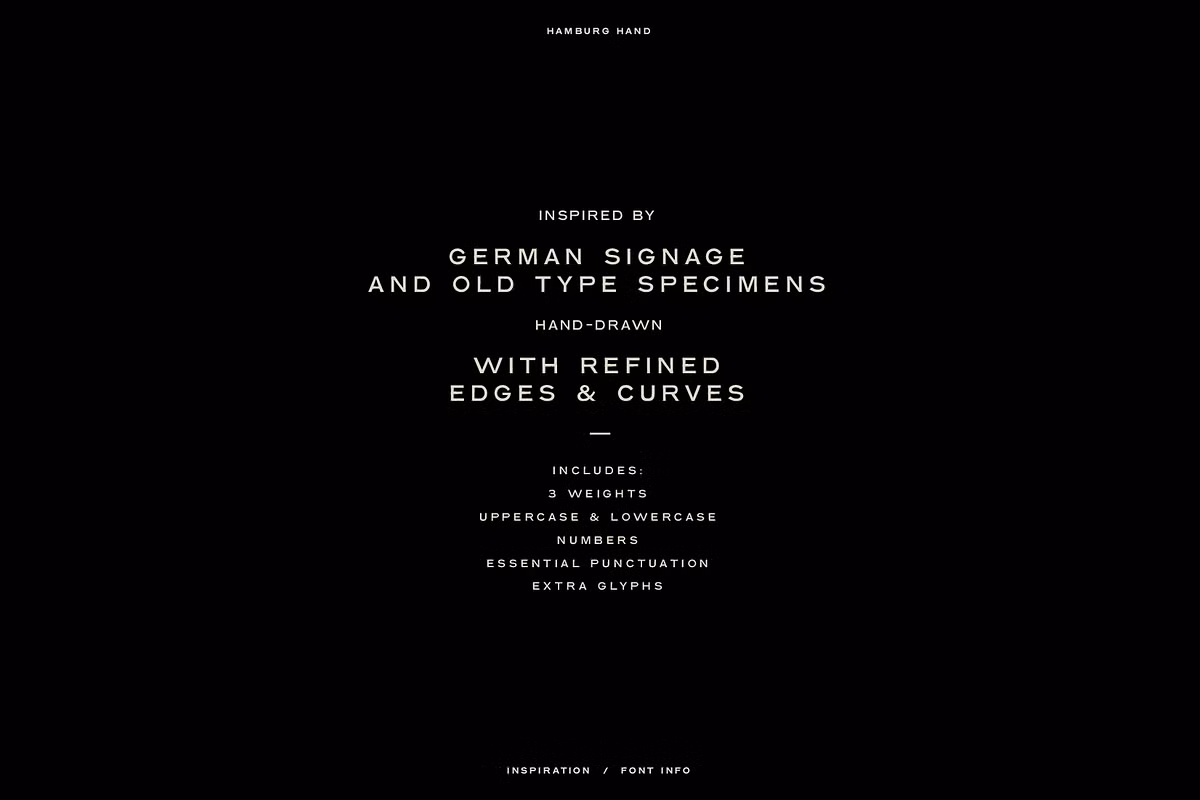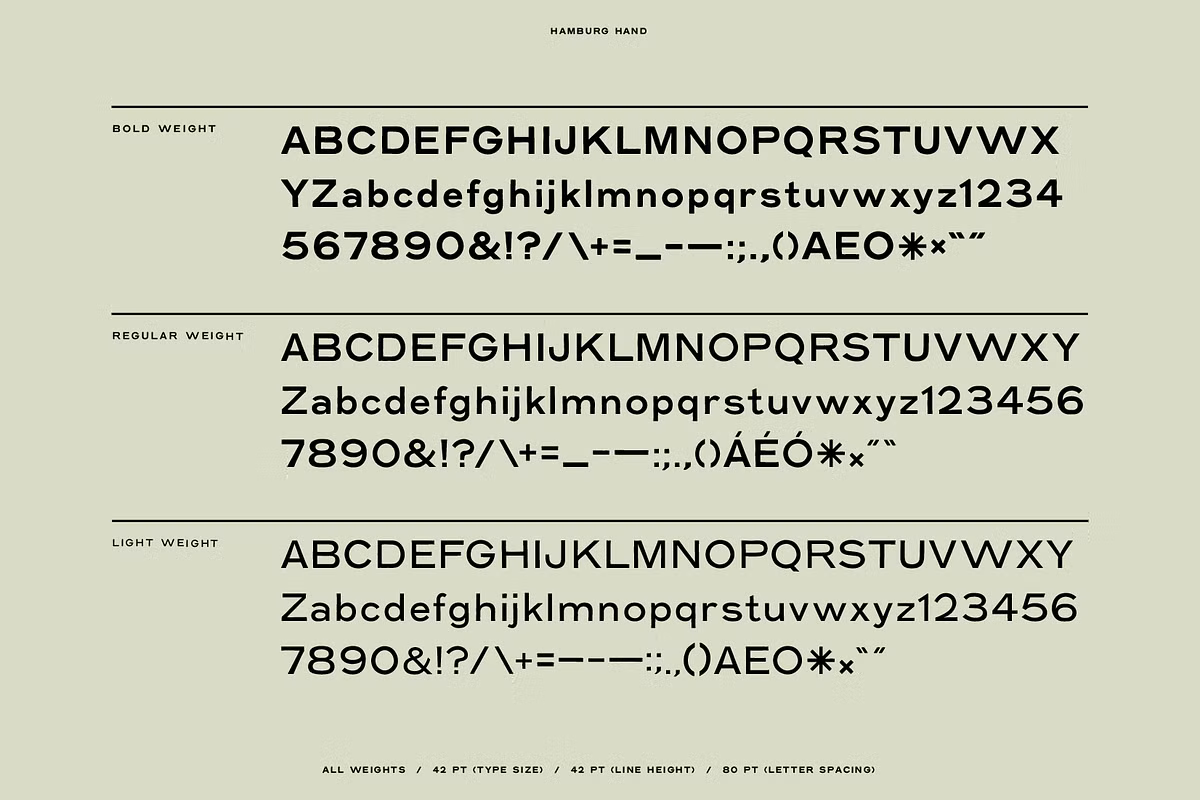
Hamburg Hand: Hand-Drawn Font Inspired by German Signage
Introducing Hamburg Hand. Hamburg Hand is a really cool font that was drawn by hand. It gets its style from old signs in Germany and other classic fonts from the past. The people who made it just added lowercase letters, so now it’s even more useful for designers. You can use it to make logos or create special layouts that stand out. This font is special because it was made with care and it has a lot of character, just like old signs from a long time ago. It’s not just something you use to write with, it’s like a work of art that adds a personal touch to your work.
The Hamburg Hand font has a really unique look that’s like it was drawn by hand. It’s got a classic feel to it, like something from the past, and it seems really genuine. This font is inspired by old German signs, and it’s got a relaxed but still fancy style that makes it perfect for all sorts of creative projects.
Hamburg Hand is a pretty cool font with soft edges and a fun feel to it. It really stands out when you use it in a design. The little letters have been updated to match the big letters, so everything looks nice and consistent. This makes it easy to read and also gives it a lot of personality. If you’re a designer trying to create a brand that people will remember, Hamburg Hand is a great choice because it’s both easy to read and really unique.
The way the letters are shaped in this font is really special and reminds me of things made by skilled craftsmen. This can be especially nice for brands that want to seem old-fashioned or high-quality, like they’re made with love and care.
Character Sets
Hamburg Hand offers a comprehensive character set that includes uppercase and lowercase letters, numerals, and a selection of punctuation marks. This extensive range allows for creative flexibility, making it easier for you to express your ideas in various formats.
Hamburg Hand is a great font for making things look special. It has some extra characters and ligatures that can make your designs really unique. This makes it perfect for creating personalized messages or quotes that stand out, and even for making product names that are really eye-catching. You can use it to add a little something extra to your designs and make them look really cool.
The new update is really cool because it adds lowercase letters, which makes it easier to create text that feels more relaxed and friendly. This is especially great for projects that want to talk to people in a more personal way.
The Hamburg Hand font is really useful and can be used in many different design projects. Here are some examples of when it works well:
- Branding and Logos: The font’s unique character can help create memorable logos that reflect the brand’s identity, especially for businesses in food, hospitality, or artisanal sectors.
- Hamburg Hand is great for things like posters, flyers, and brochures because it adds a personal touch that can make the message and look even better.
- Social Media Graphics: The playful nature of the font makes it ideal for social media posts and promotional materials that need to capture attention quickly.
- Web Design: Incorporate Hamburg Hand into your website layouts to add a creative flair that resonates with visitors and enhances user engagement.
Hamburg Hand has a really nice look to it, and it can make any project look better, helping it get noticed when there are a lot of other things around.
When it comes to pairing fonts, Hamburg Hand offers a unique opportunity to combine its playful style with complementary typefaces. Here are some pairing suggestions that can enhance your design:
- Sans-serif Fonts: Pairing Hamburg Hand with a clean sans-serif font like Montserrat or Open Sans can create a striking contrast. The modern, clean lines of the sans-serif help balance the whimsical nature of Hamburg Hand.
- If you want a classic look, try pairing Hamburg Hand with a serif font like Merriweather or Playfair Display. The old-school charm of serif fonts can create a nice contrast with the hand-drawn style of Hamburg Hand, making it look really sophisticated.
- If you want your project to have a consistent handwritten feel, try combining Hamburg Hand with a different handwritten or script font, like Pacifico. This can give your project a fun and casual look that’s great for personal stuff.
Experimenting with these combinations can help you find the perfect match that enhances your overall design while maintaining readability and visual interest.
You can use it to express yourself in a way that’s both fun and stylish. To really get the most out of Hamburg Hand, you need to understand what makes it tick – its design style, the characters it uses, what it’s good for, how it works with other fonts, and what the rules are for using it.
When you’ve got all that down, you can use Hamburg Hand to make your creative projects really stand out, whether you’re starting a new brand or just working on something for yourself.